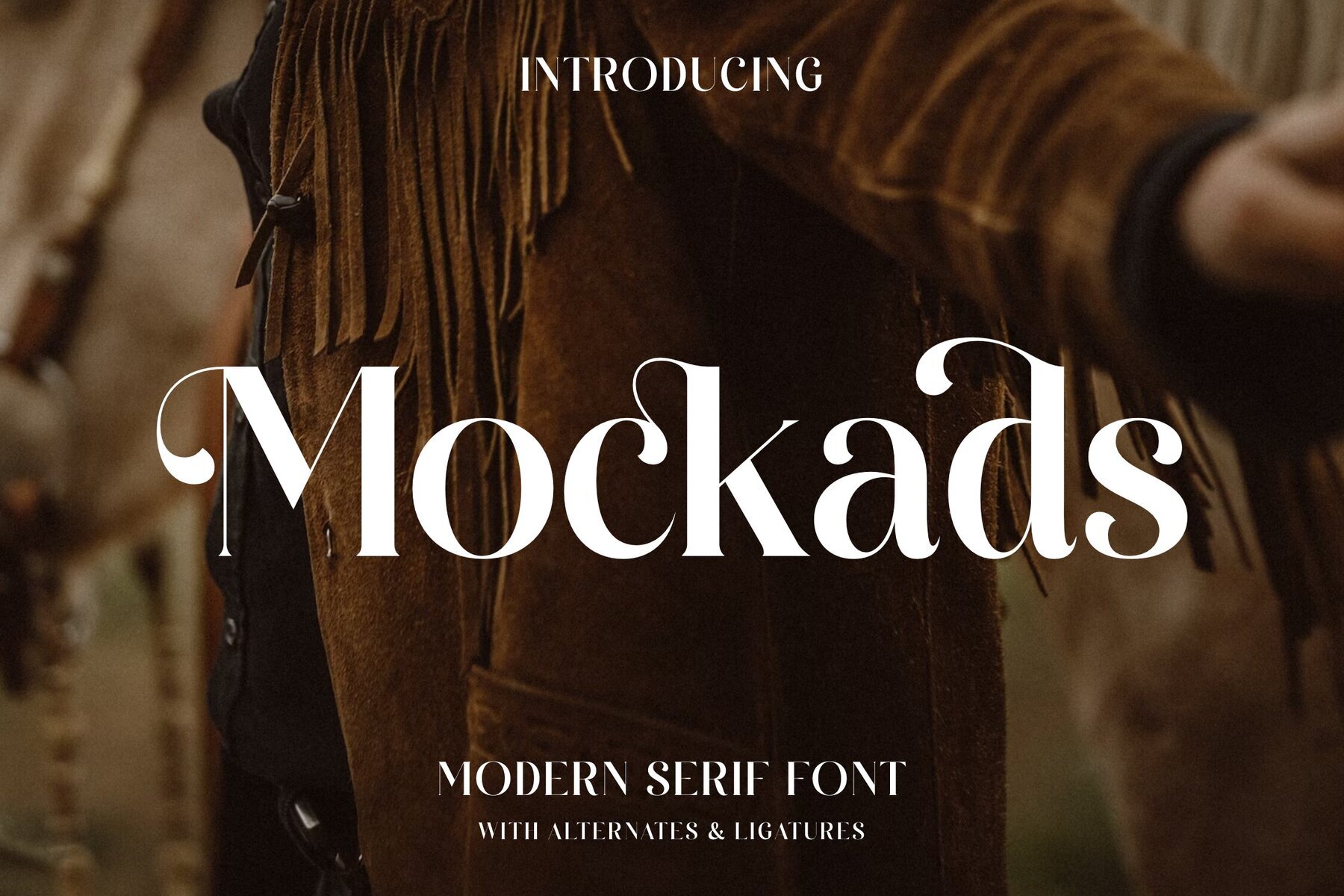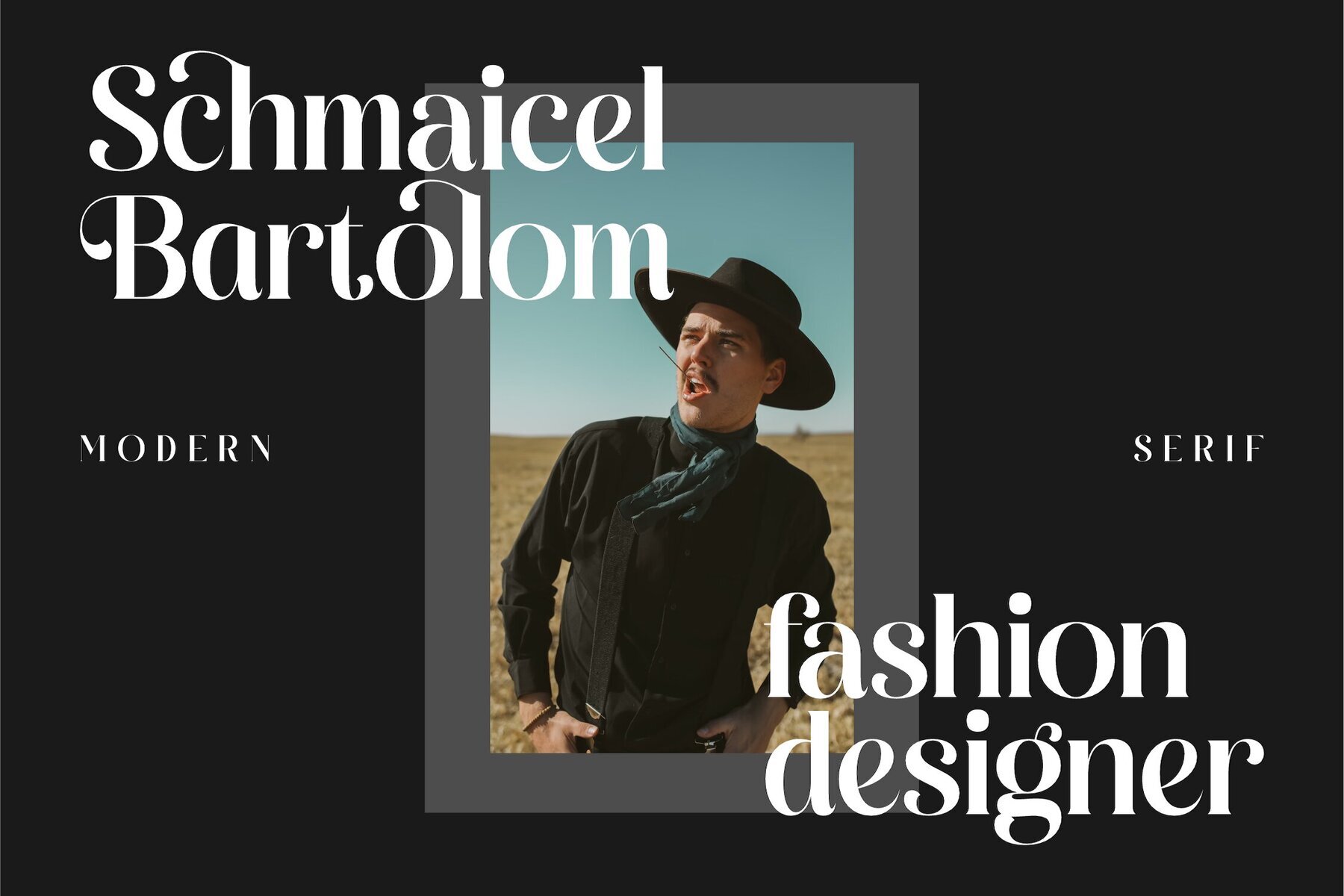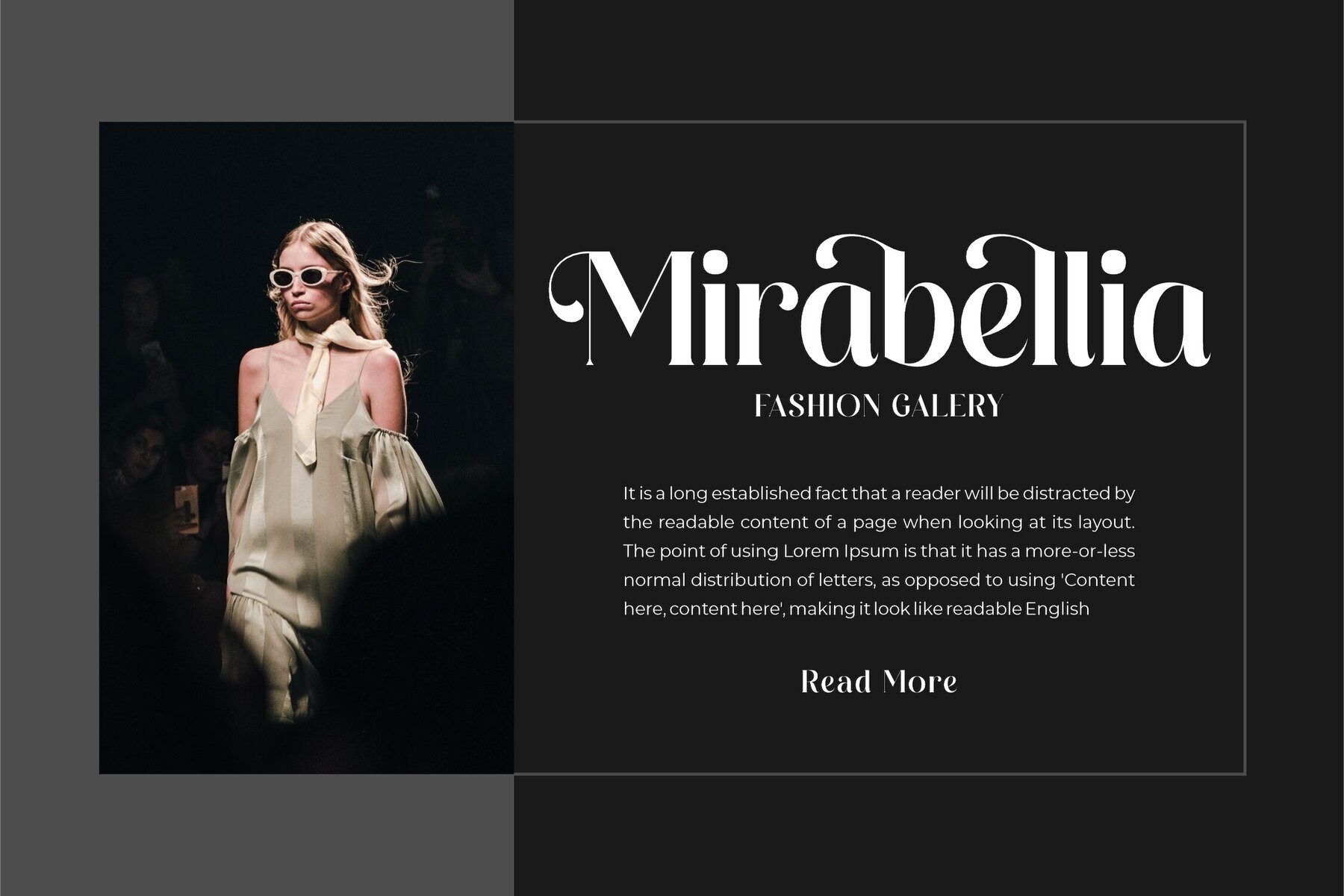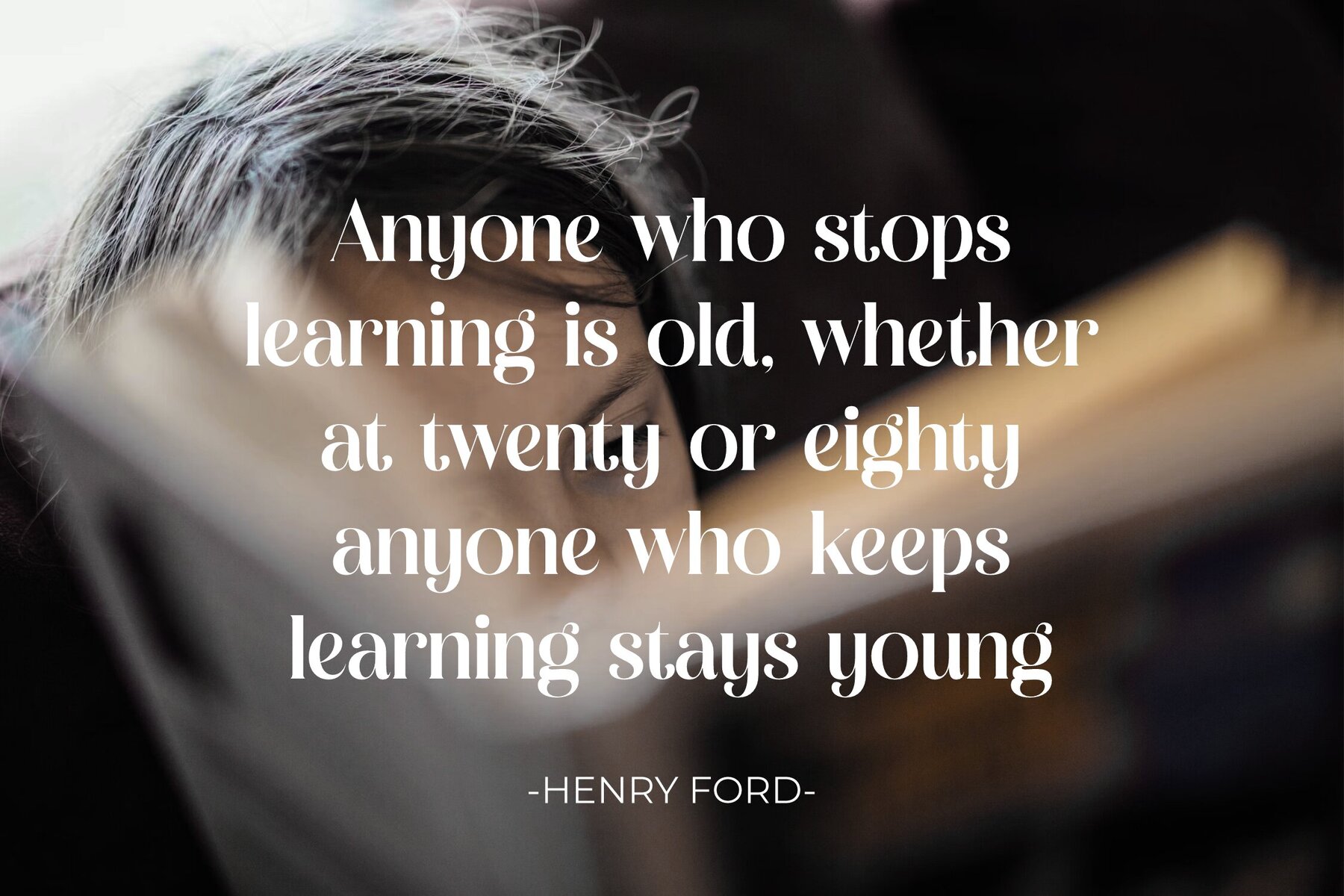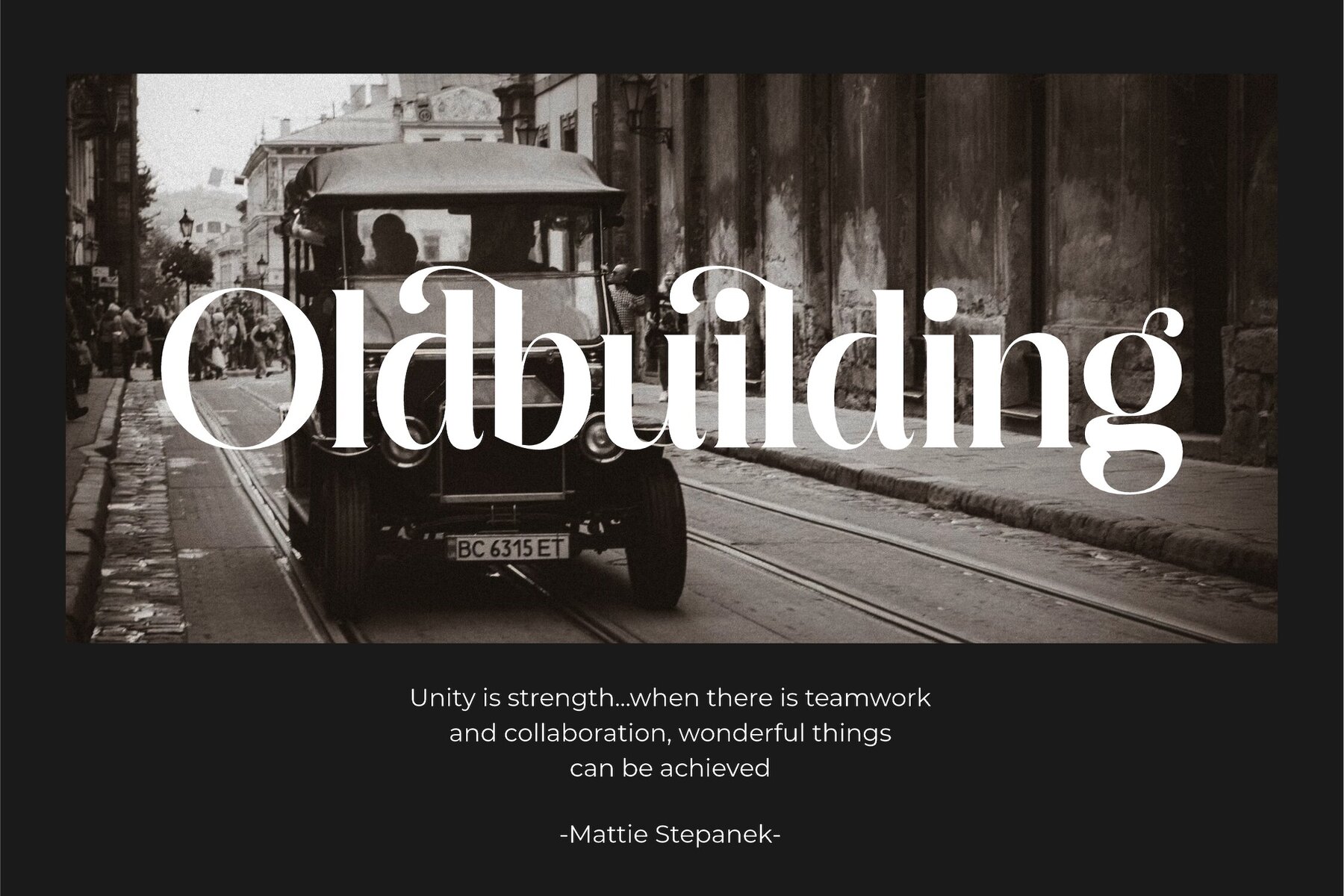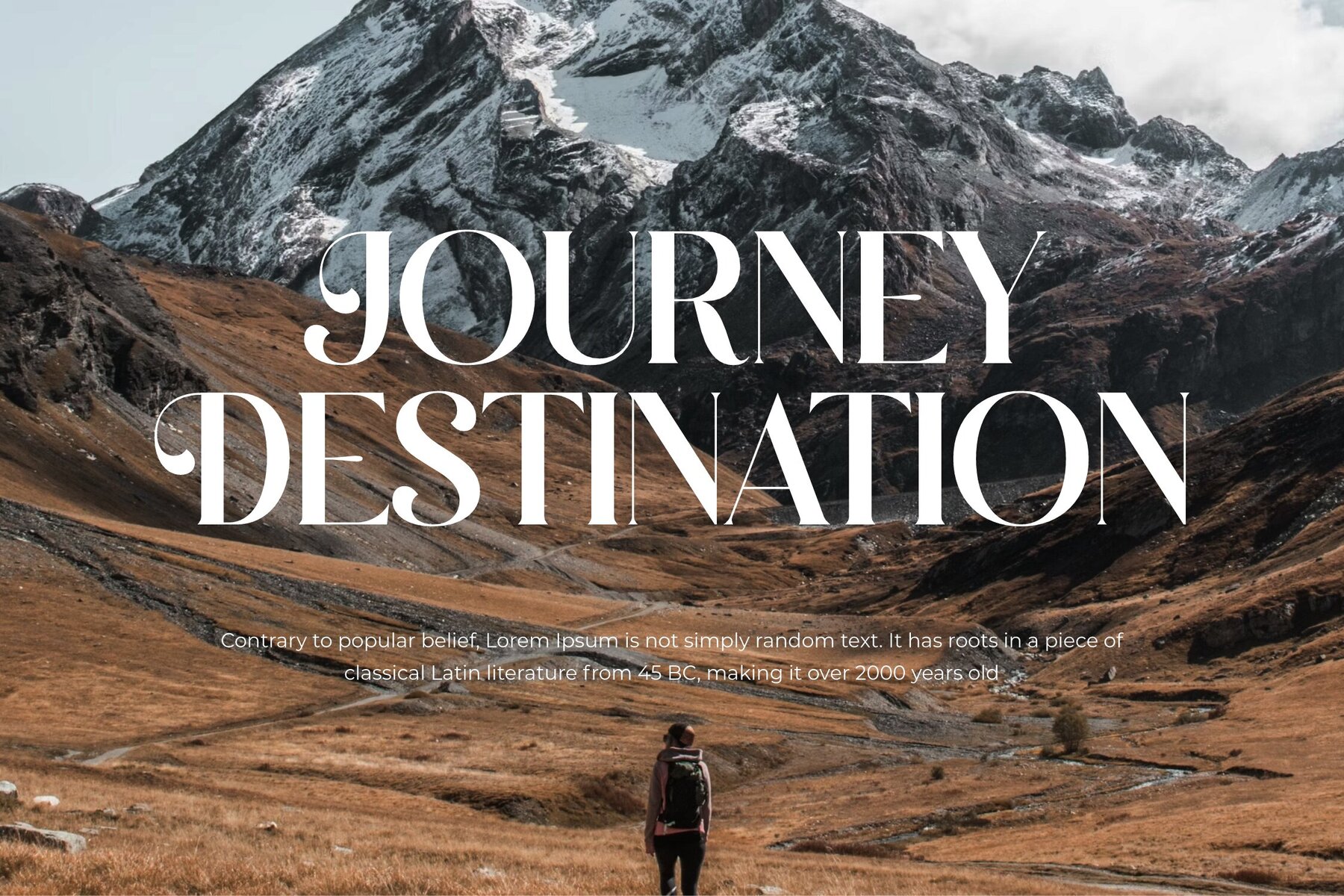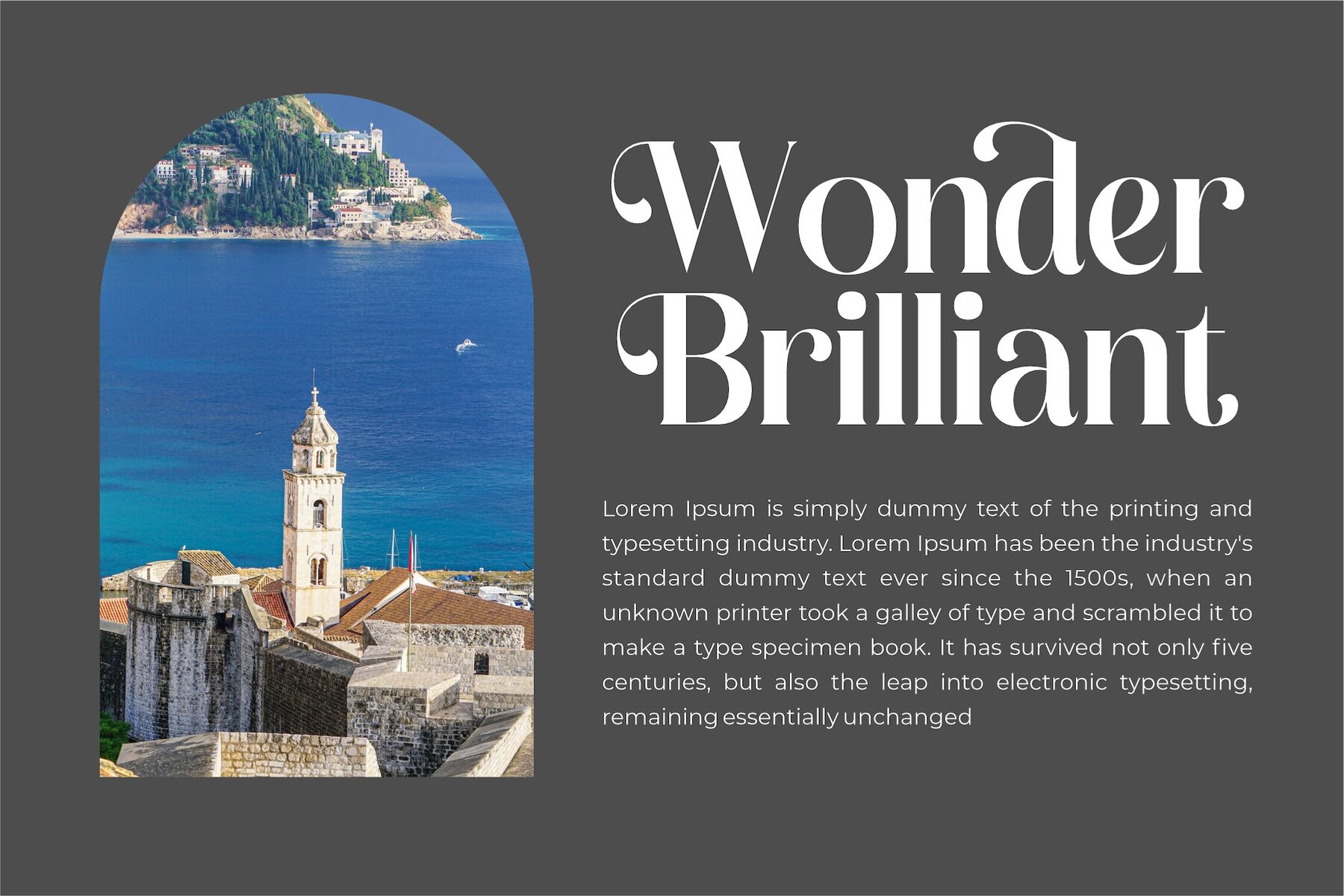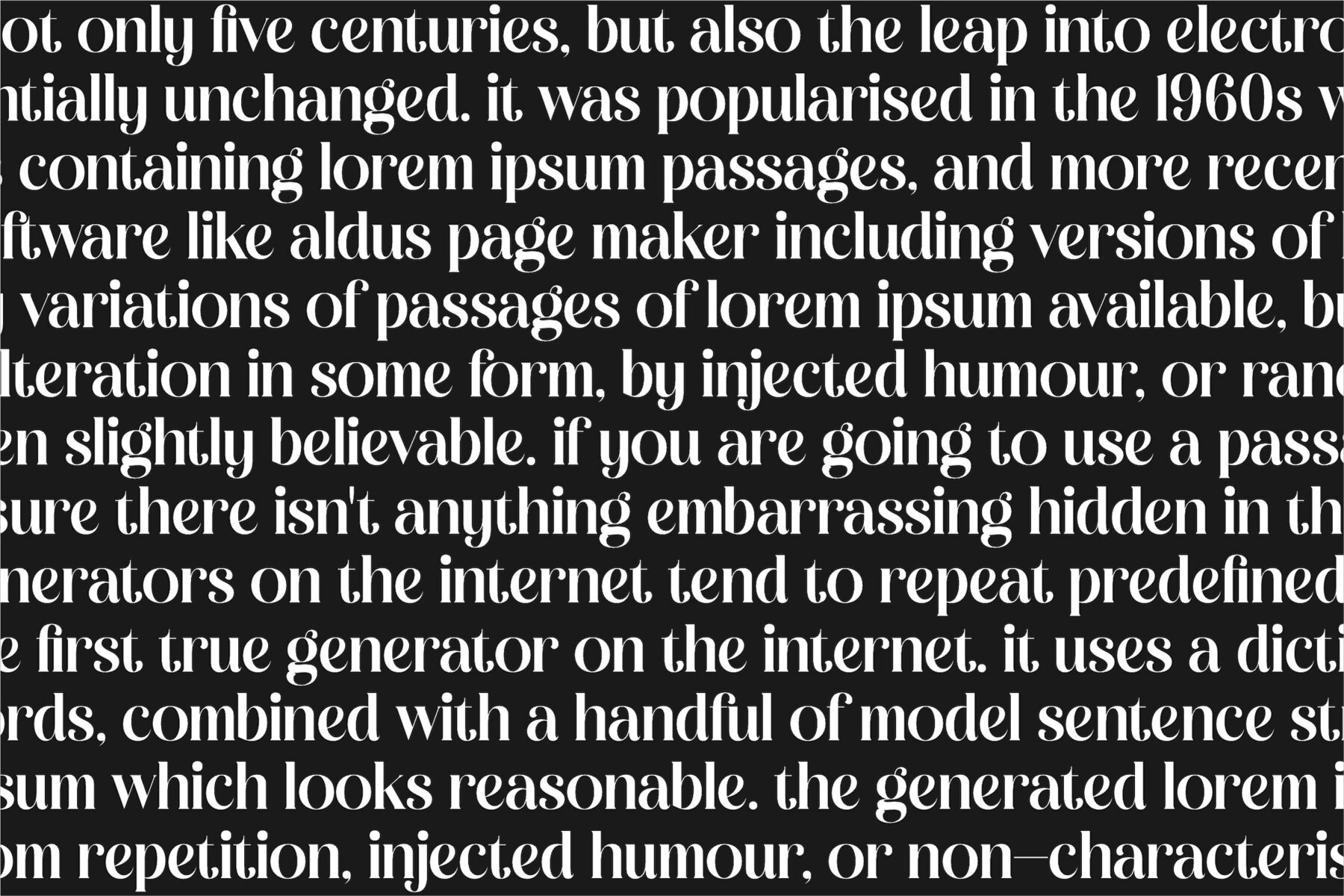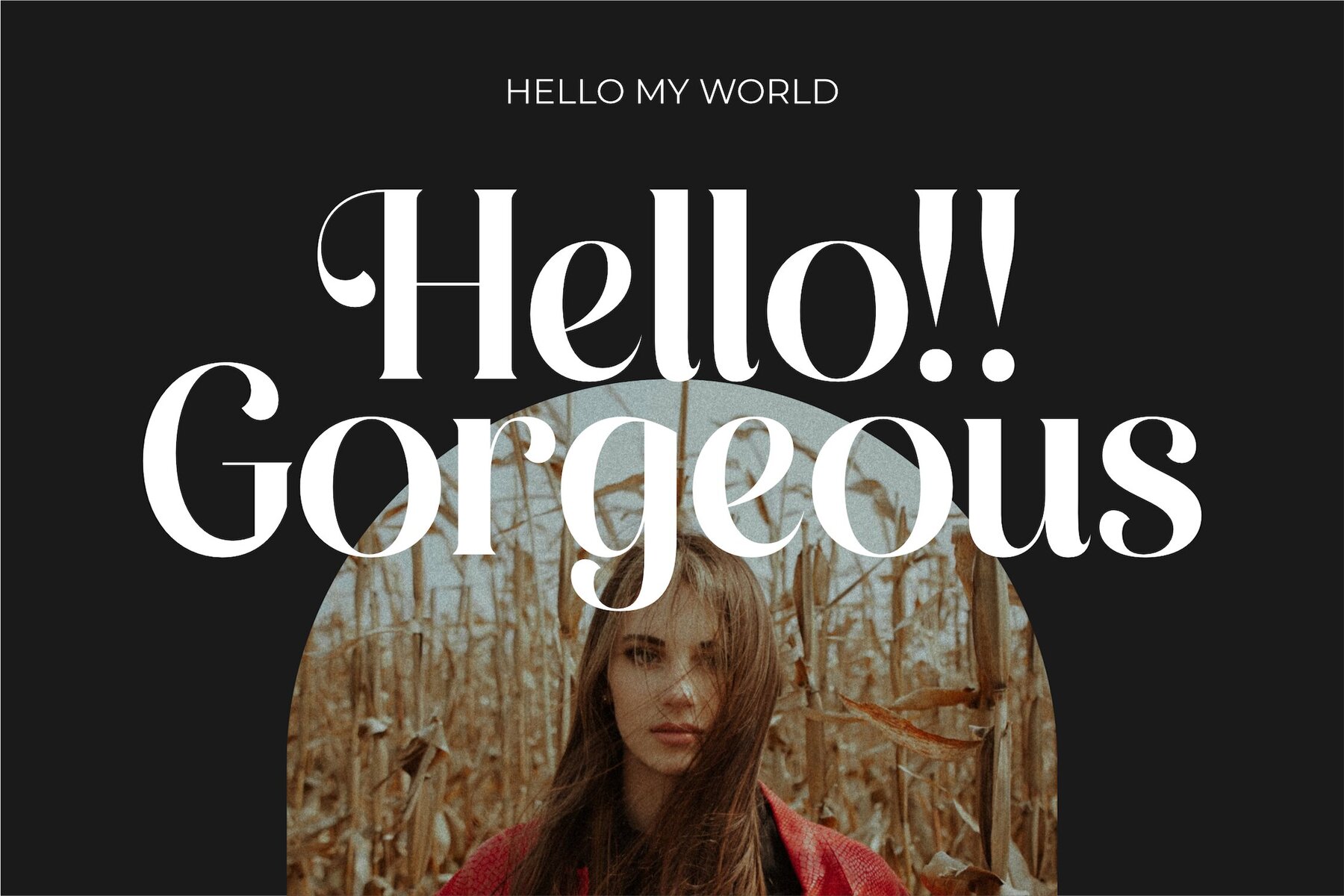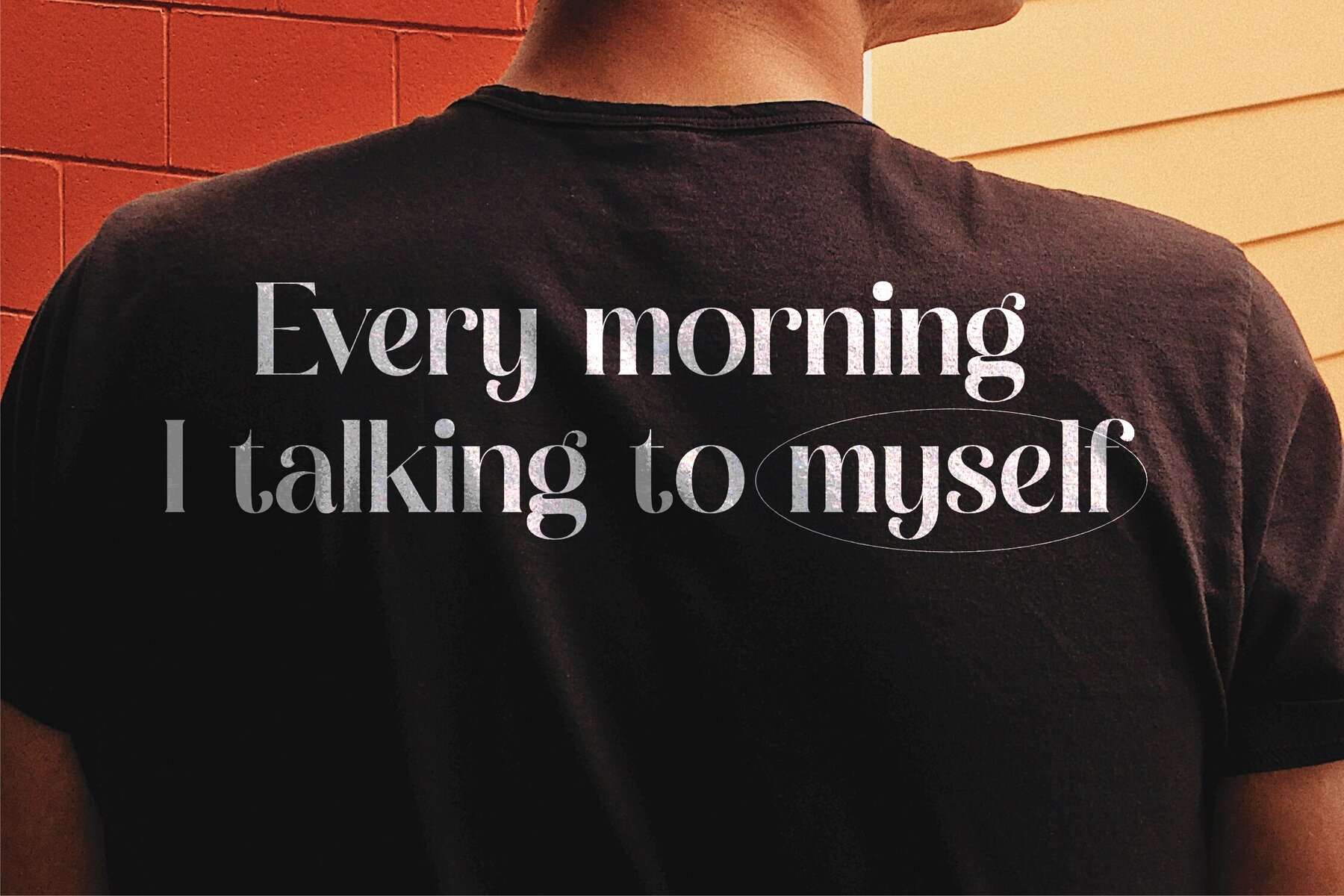
Mockads Font
Presenting Mockads Typeface, a blend of modern sophistication and timeless elegance. This unique serif font offers a distinct style perfect for luxury logos, captivating book or movie titles, fashion brands, and more. Its versatility extends to magazines, clothing lines, and impactful quotes.Mockads Typeface by Storytype Studio